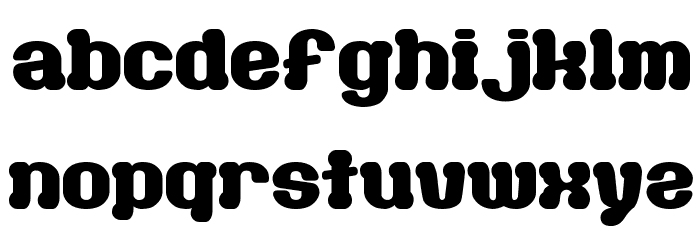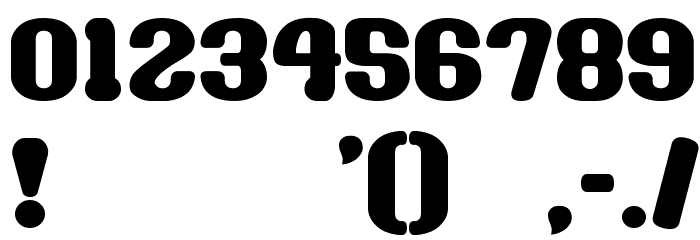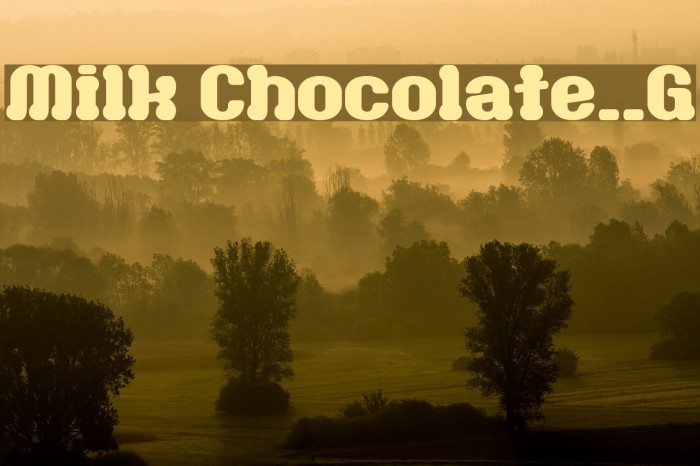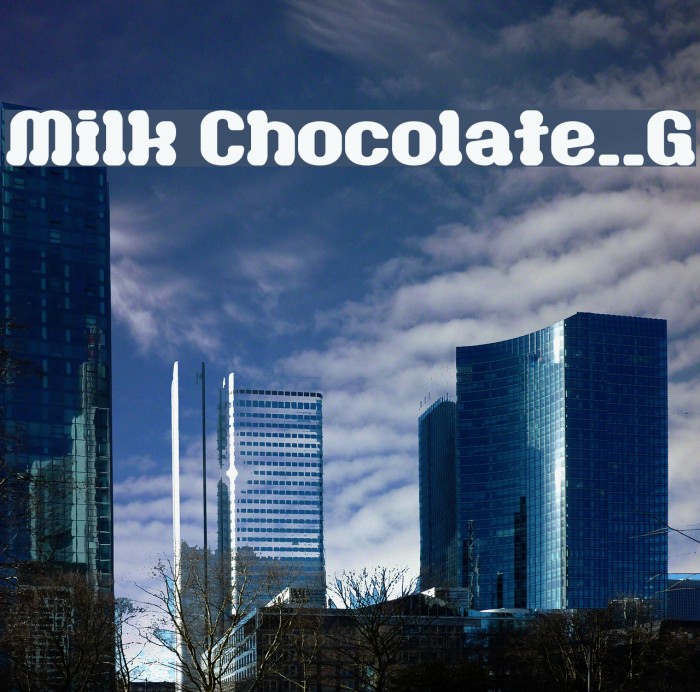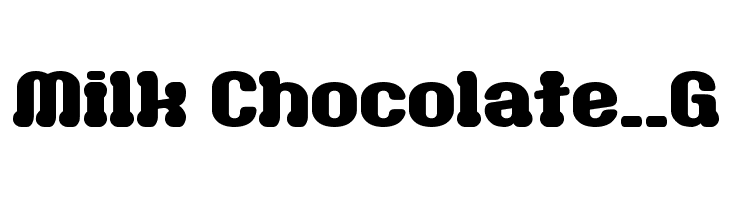
Milk Chocolate__G Font
This font features a bold and playful design with rounded edges and a bubbly appearance. The characters are thick and have a uniform stroke width, creating a cohesive and friendly look. The uppercase and lowercase letters maintain a consistent style, with the lowercase letters slightly smaller but equally bold. The numbers and special characters follow the same design principles, ensuring a harmonious overall appearance. The font's unique style makes it stand out, with its rounded forms and thick strokes giving it a distinct personality.
A bold, playful font with rounded edges and a bubbly appearance.
- Proposed Projects: Ideal for children's books, playful branding, posters, and packaging design.
- Overall Style: Playful, Modern